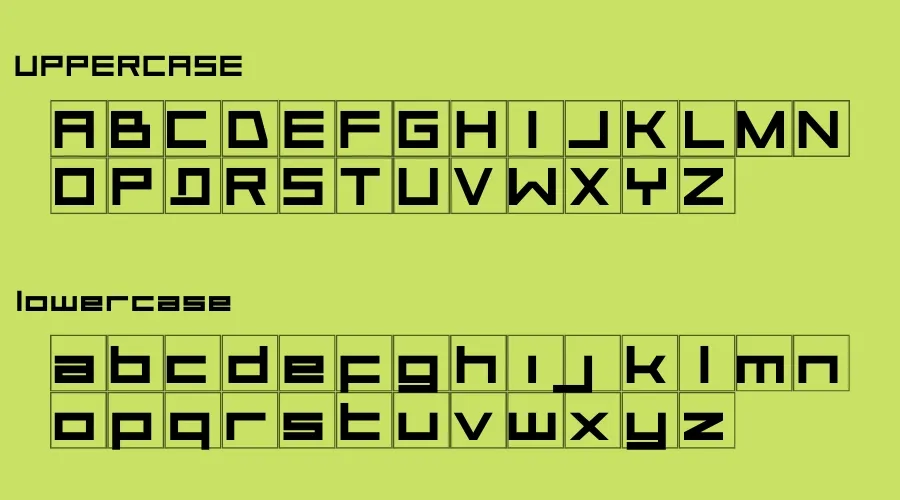
Aerial Font
About Aerial Font
Now, going to present to you Aerial Font, it was invented by a popular designer known as the name of dustBUST. This font looks like a techno texture family and has a good-looking and outstanding texture look appearance for the viewers.
The subfamily of this font is regular and has a bold texture. You may utilize its online generator tool for converting all your simple textures into outstanding and modern shapes, also it will help you to create urgent designs. Its demo version is free for all your delight methods, and layouts.
This font is perfect for CSS and adobe photoshops. It has great pairing status and can be utilized with Arturito Font and make fantastic designs.
Due to its techno texture, you can utilize it for modern projects. Because it will make your designs more attractive and stylish. It gained so much popularity when it was published in the font world. Many designers utilize it for tiny and large-scale designs.
You may also use it for web product packaging, thumbnails, printings, and social media posts. It is suitable for making pennants, symbol designs, adverts, and Instagram bio descriptions.
You can use the Aerial style with multiple other fonts, the closest font of this typeface is Work Sans Font. Naturally, including a large number of glyphs will permit you to select letters that suit you, with multiple variations and choices for each letter.
The pairing quality of this font is unique and can be reached with numerous other fonts such as;
With The God Father Font: This classic techno font is the ideal partner for God Father Font, providing a touch of elegance and complexity. These two fonts work well together to create a timeless look perfect for any project.
Pairing it with Tron Font: This font is best for titles and heading, and it includes deco and regular styles. It has amazing paring quality.
With Zombie Font: This typeface has a neat and clean texture and perfect choice for many different projects. You can compare it with multiple other purposes.
What kind of font is Aerial Font?
Aerial Font was invented by a popular designer known as the name of dustBUST. This font looks like a techno texture family and has good-looking and outstanding characters.
What is a similar font to Aerial Font?
A similar font of this typeface is EB Garamond font. It has an amazingly stylish and contemporary typeface style.
Why buy an Aerial Font?
You need an adaptable techno typeface that can be utilized for a combination of tasks. You want a typeface that is positively readable and has a neat, easy design.